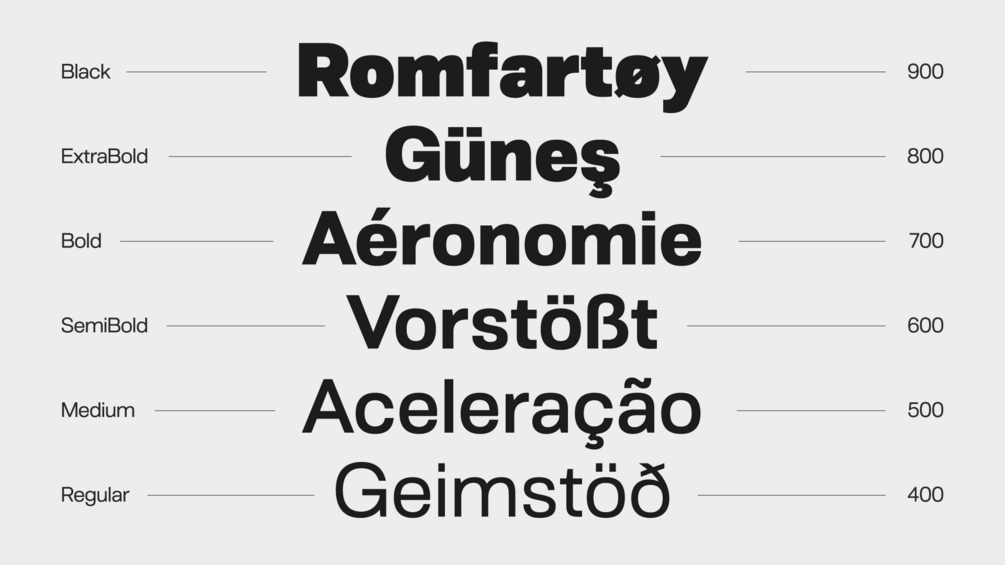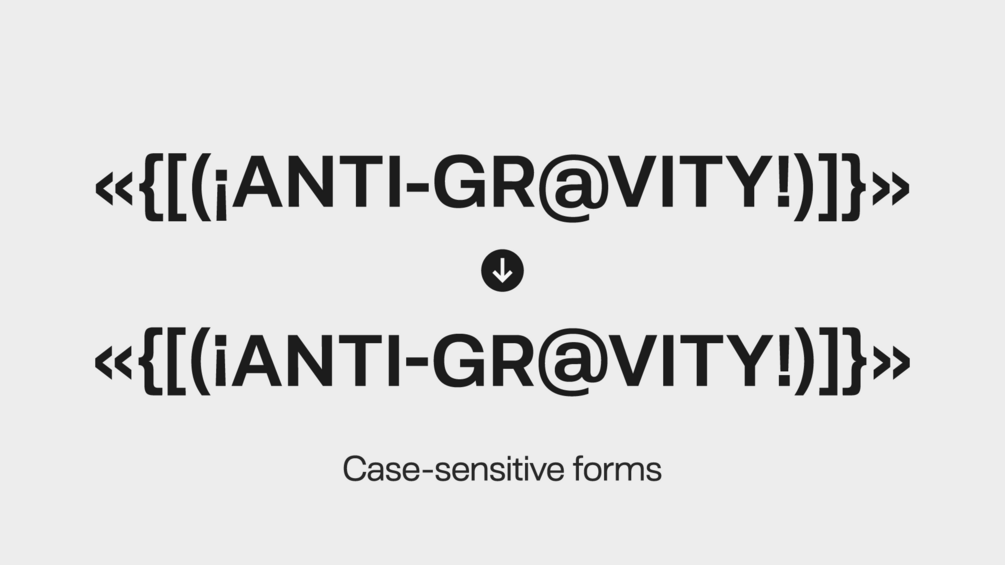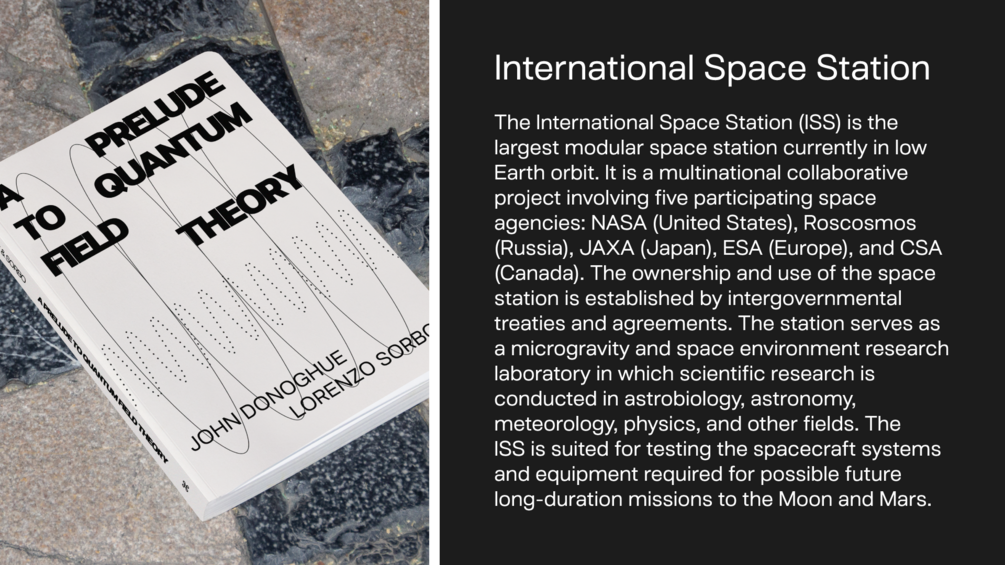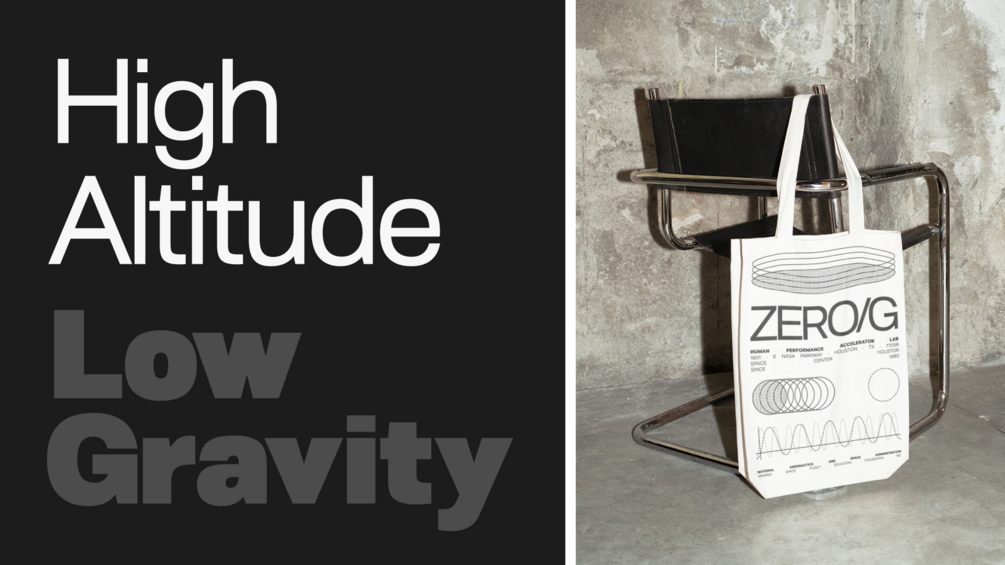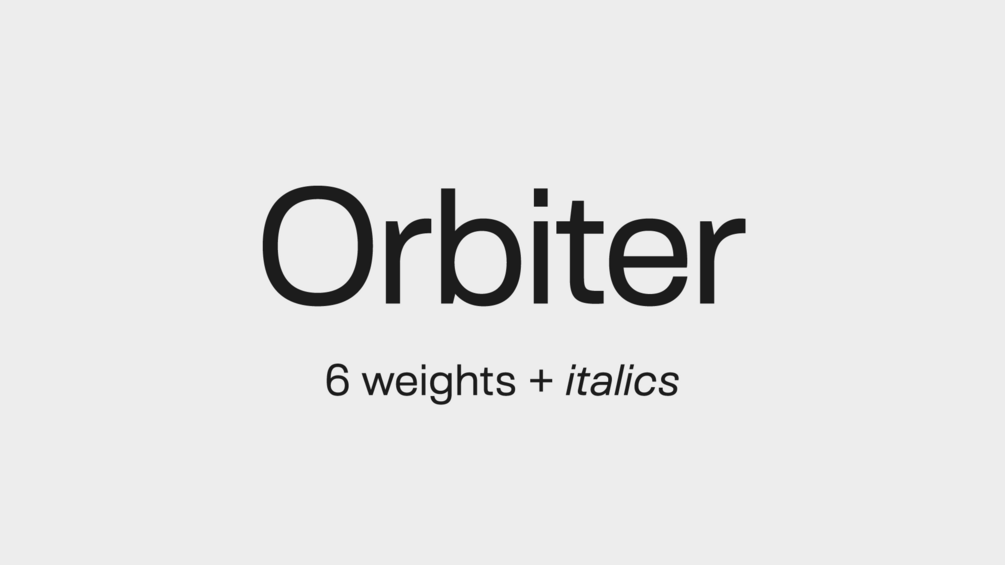
POI Orbiter
Orbiter is a typeface designed with the everyday in mind. The ample x-height and tapered joints are great for small text or large signage. The subtle squared constructions makes this neo-grotesque stand out from the crowd. Orbiter boasts over 400 glyphs and support for many Latin-based languages.